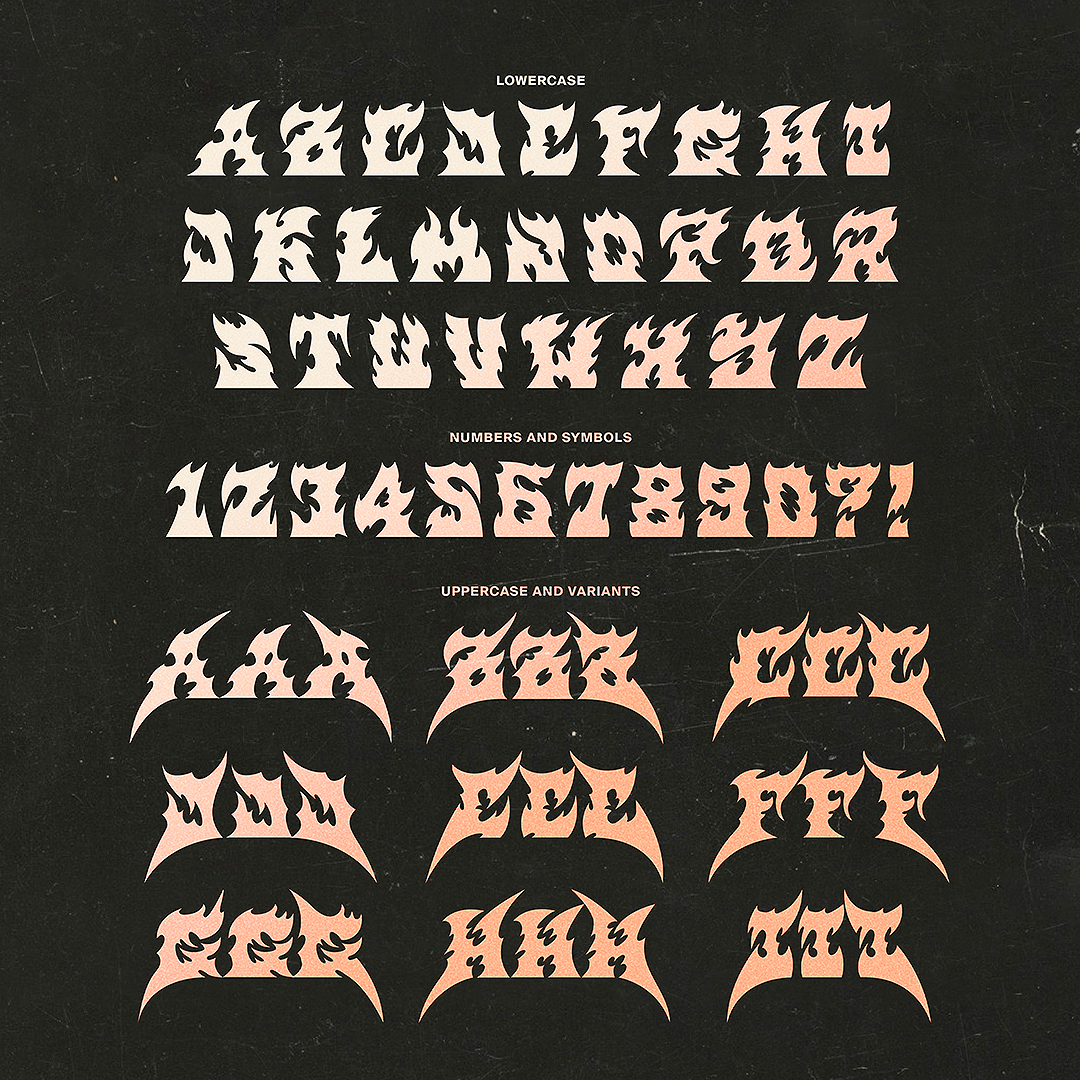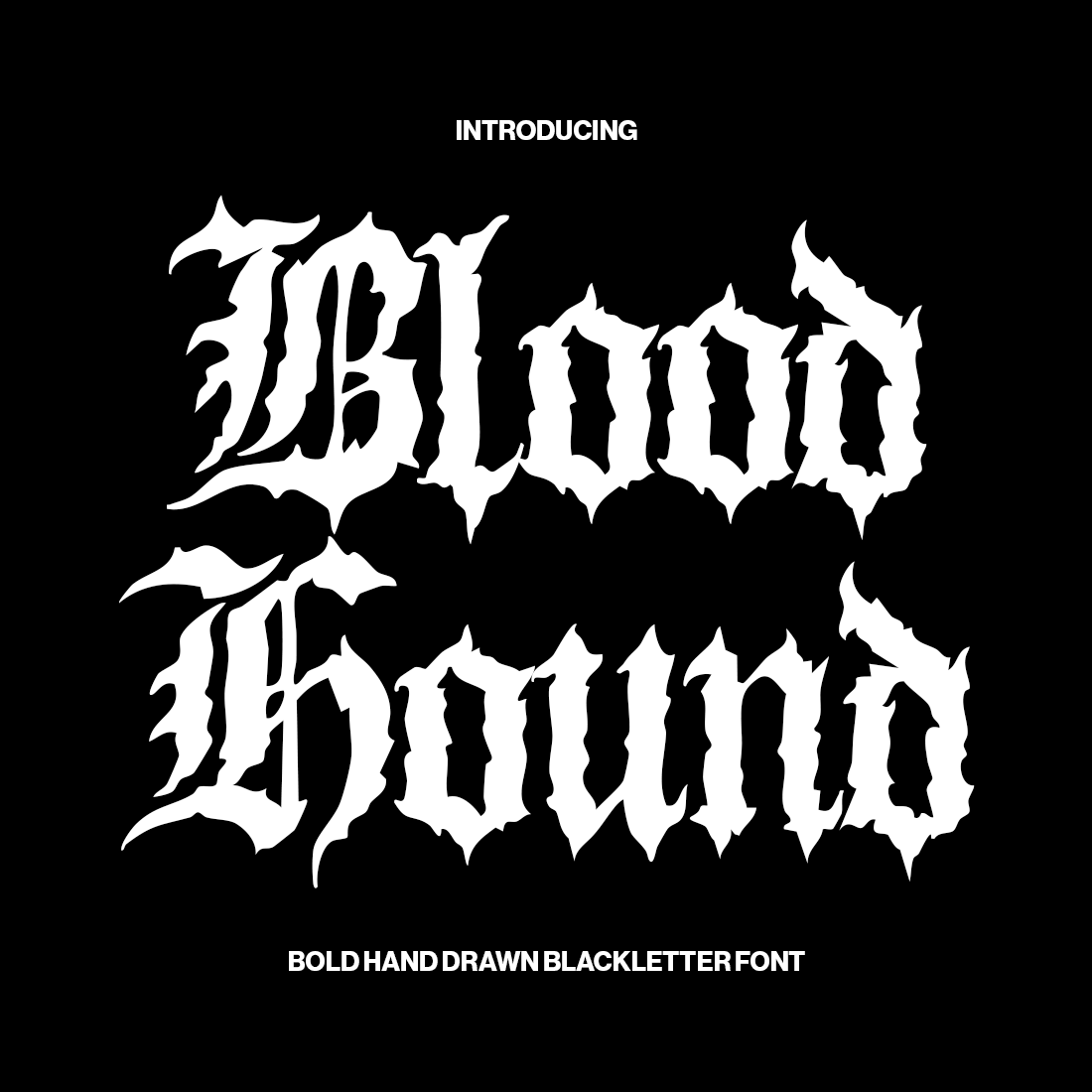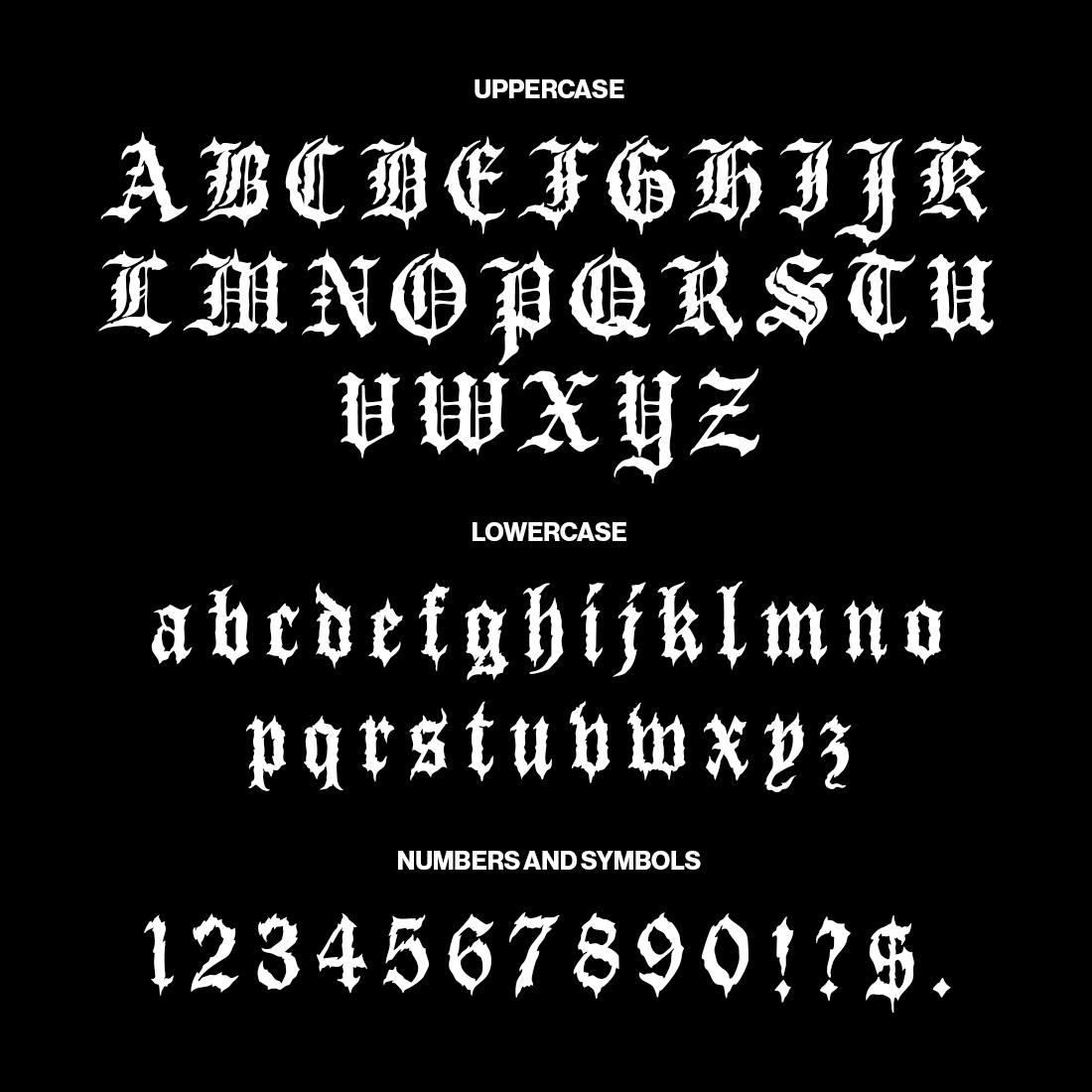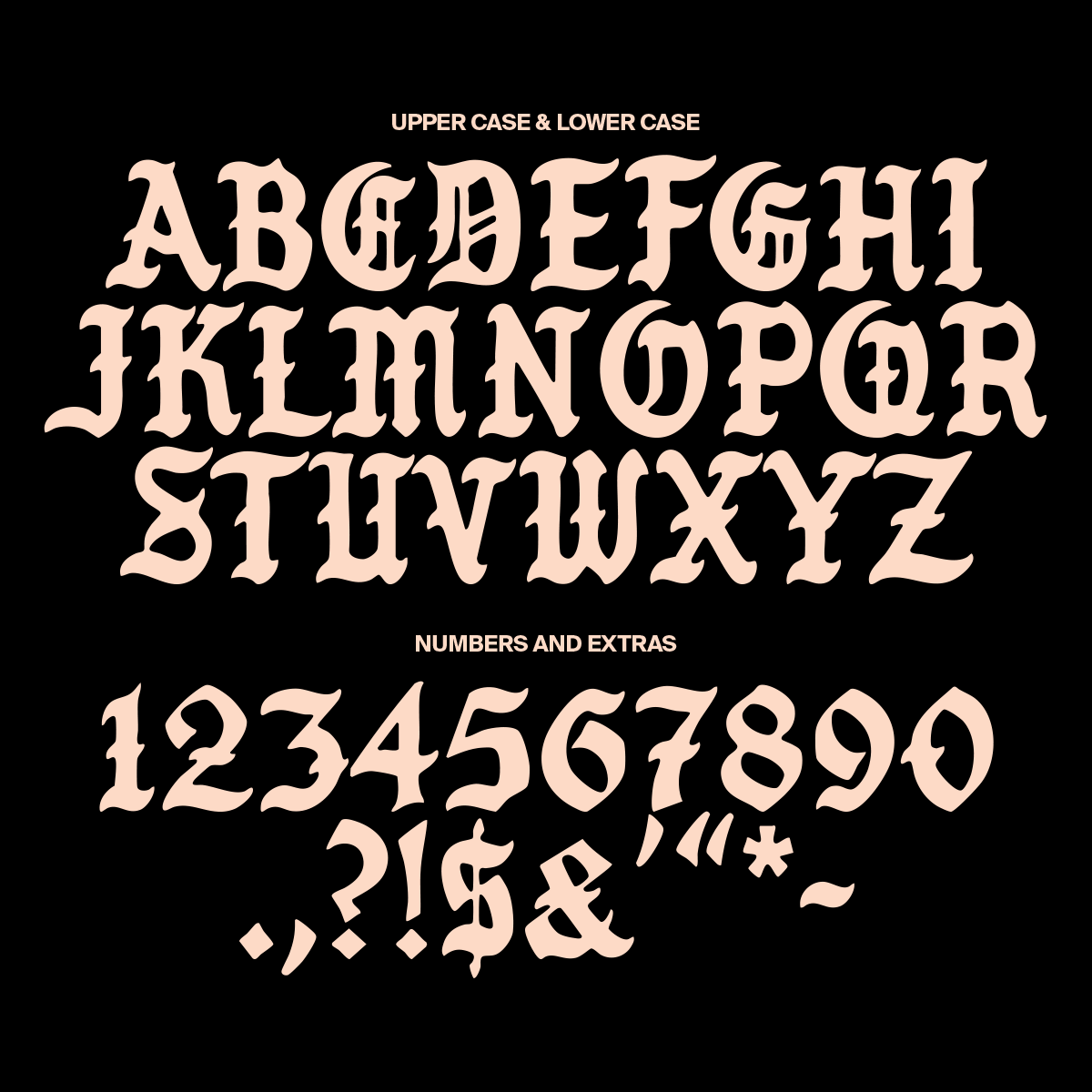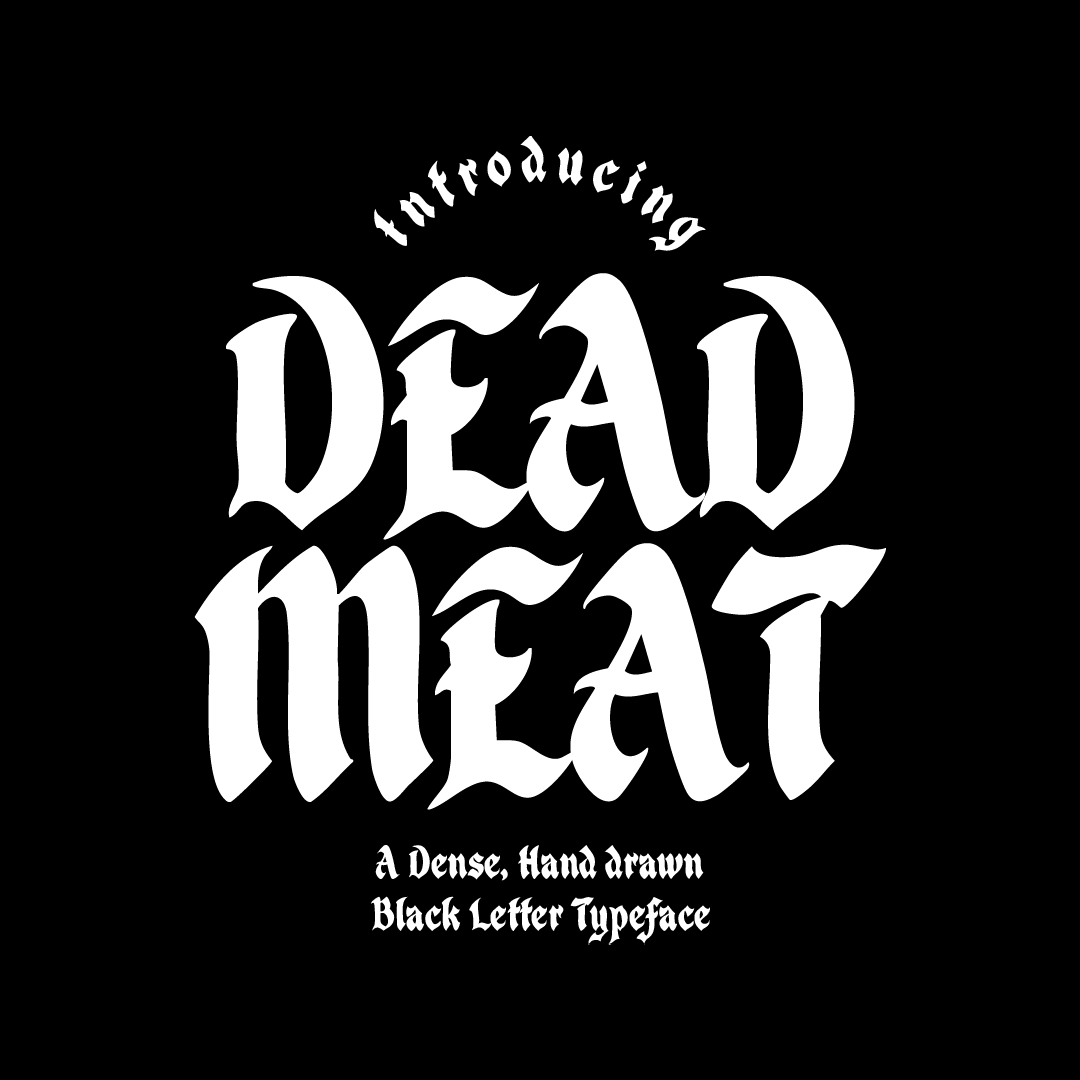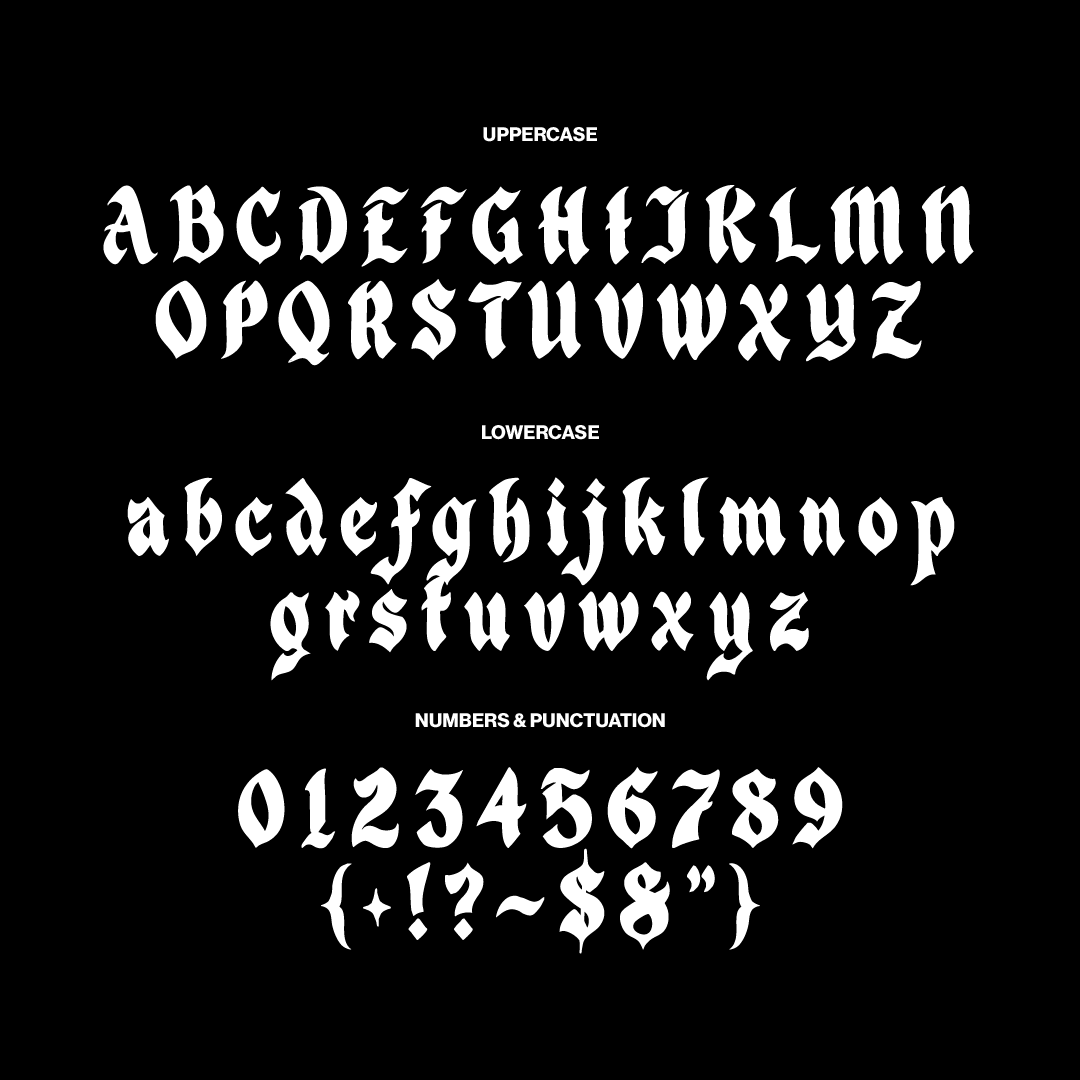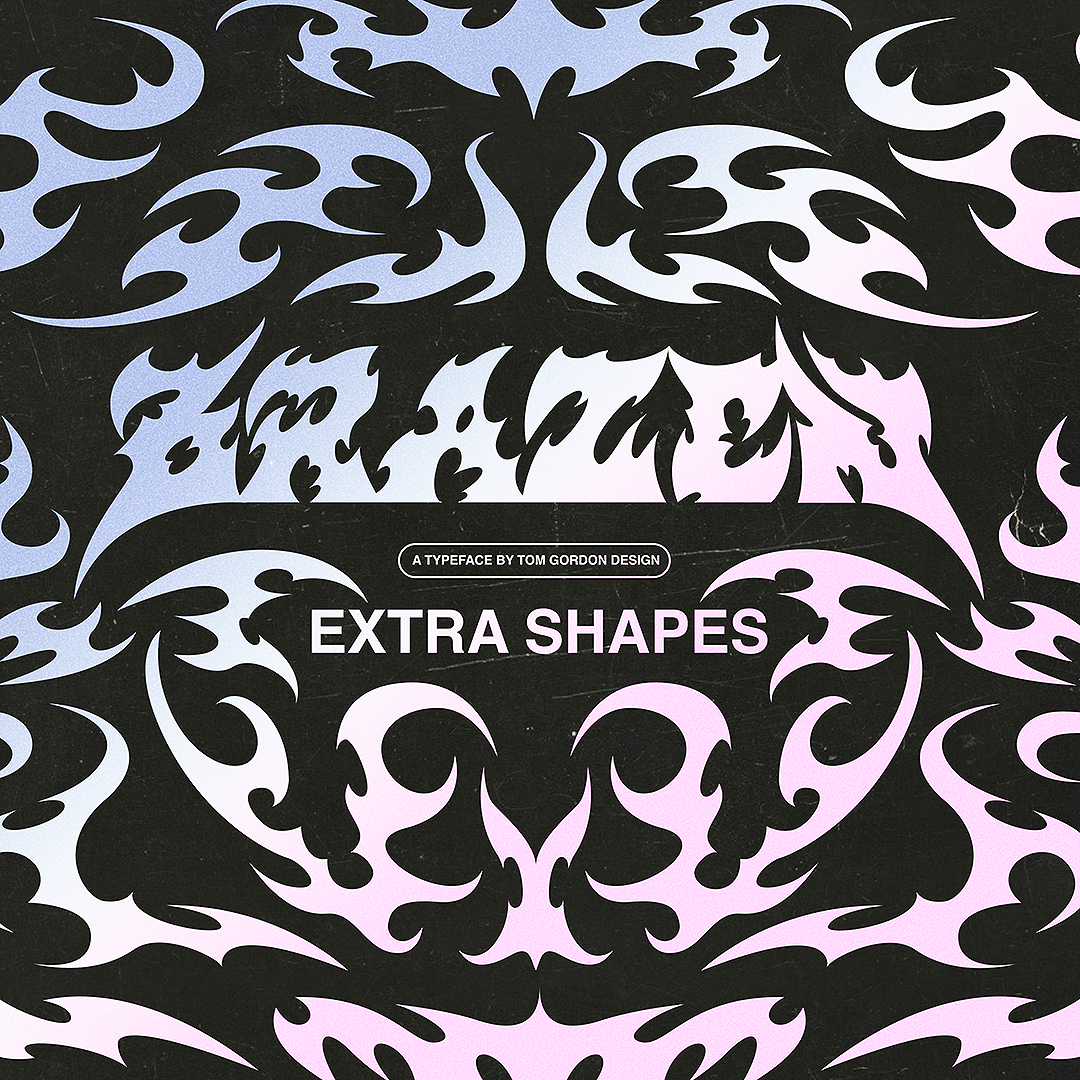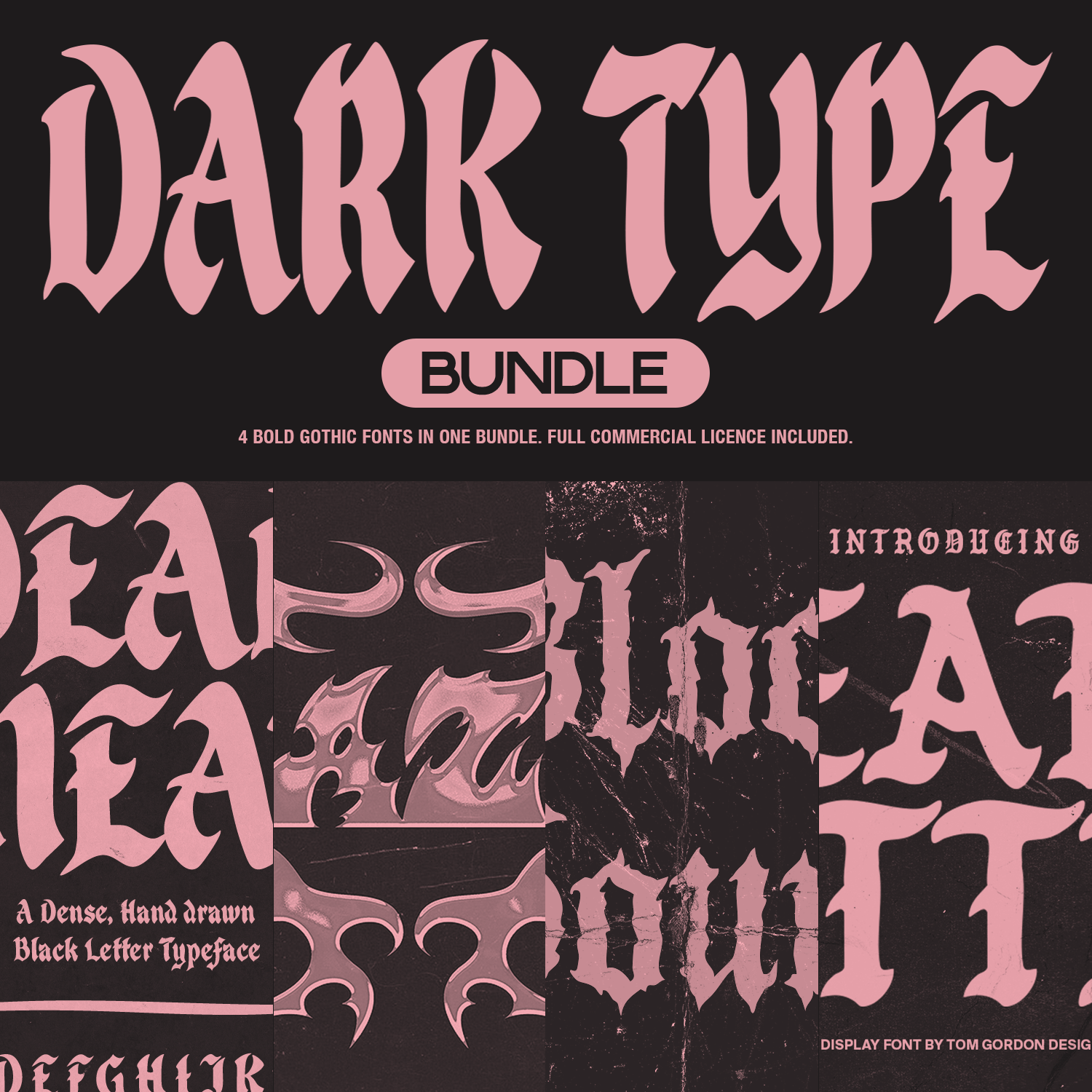
Dark Type Font Bundle
“Dark Type Bundle” includes 4 of my unique gothic fonts! This collection of dark and gothic fonts is the perfect option for designers who are looking for bold and exciting fonts to use on merchandise, logos, album art and much more. Designed with metal and hip hop aesthetics in mind these have been a staple in my own work since creating them.
Included in this bundle:
Blood Hound
Dead Meat
Brazen (plus extra vector files)
Death Letter